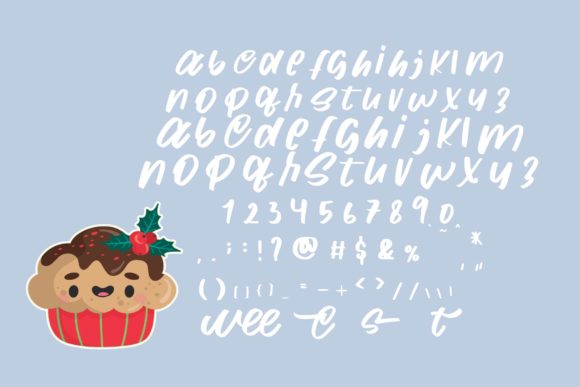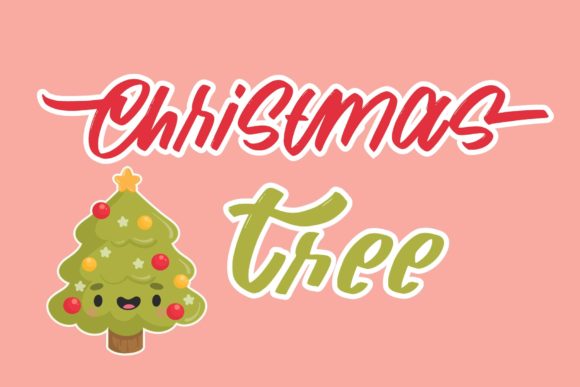
Deck the Halls with Joy: Introducing Christmas Sweet Font
It’s the most wonderful time of the year, and what better way to get into the holiday spirit than by creating something truly special? As designers, we’re always on the lookout for the perfect font to bring our Christmas projects to life. And that’s exactly what we’ve found with the delightful Christmas Sweet Font.
This charming display font is a true showstopper, with its cute style and excellent readability making it perfect for everything from Christmas cards to branding and stationery. Whether you’re designing custom art, custom stamps, or even packaging, Christmas Sweet Font is sure to add a unique touch to your project. With its versatility and visual appeal, this font is a valuable asset for any designer looking to make their holiday designs stand out.
- Font Family: Christmas Sweet, a festive and playful font designed for holiday-themed projects.
- Unique Characteristics: Features a whimsical, hand-drawn design with intricate details and ornaments, perfect for adding a touch of holiday magic to projects.
Designer Review: Christmas Sweet Font
At first glance, Christmas Sweet Font ✨ seems to capture the essence of the holiday season. The playful, handwritten style is reminiscent of festive decorations and warm, cozy feelings. The font is well-suited for titles and headings, adding a touch of whimsy to any design project.
The font has a nice range of weights and styles, making it easy to customize for various applications. The italic and bold variations are particularly useful for creating visual hierarchy and emphasis.
Limits and Considerations
While Christmas Sweet Font ✨ is a great choice for certain projects, there are some limitations to consider:
- ⚠️ The font may be too playful or childish for more formal or professional designs.
- ⚠️ The handwritten style can be difficult to read at smaller font sizes, especially for those with vision impairments.
- ⚠️ The font is not suitable for large blocks of text, as it can become overwhelming and difficult to follow.
Overall, I think Christmas Sweet Font is a fun and festive choice for the right projects. While it may not be the best fit for every design, it’s definitely worth considering for holiday-themed or creative projects.
Tips for Getting the Most Out of Christmas Sweet Font
For the best results, use Christmas Sweet Font in combination with festive colors and imagery. Experiment with different font sizes and styles to create visual interest.
Christmas Sweet Font is ideal for:
- Christmas cards and invitations
- Holiday-themed social media posts
- Festive flyers and brochures
- Seasonal menus and product labels
Alternatives to “Christmas Sweet Font” for Designers
Copperplate
Copperplate is a elegant script font that resembles handwriting. It’s perfect for creating a classic, sophisticated look for Christmas invitations, cards, or packaging. Copperplate is a more refined alternative to Christmas Sweet Font, with a smoother and more cursive feel.
Jester
Jester is a playful, whimsical font that’s great for adding a touch of humor and personality to your Christmas designs. It’s similar to Christmas Sweet Font in its fun and festive vibe, but with a more unpredictable and quirky feel. Use Jester for Christmas party invitations, decorations, or social media graphics.
Great Vibes is a modern, elegant script font that’s perfect for creating a warm and inviting atmosphere for Christmas. It’s similar to Christmas Sweet Font in its flowing, cursive feel, but with a more refined and sophisticated look. Use Great Vibes for Christmas branding, packaging, or website headers.